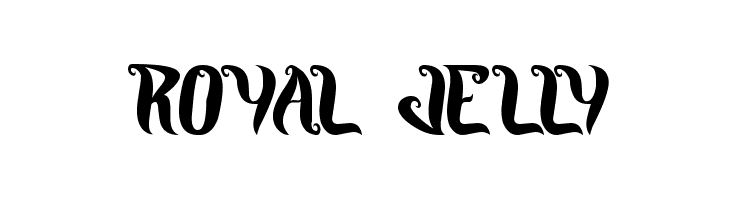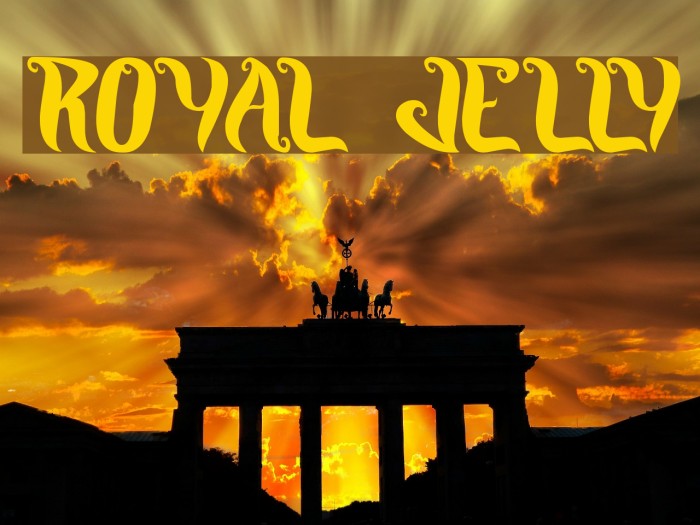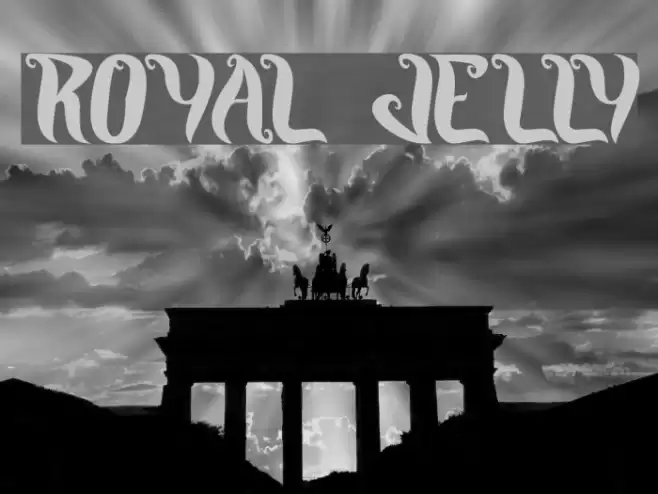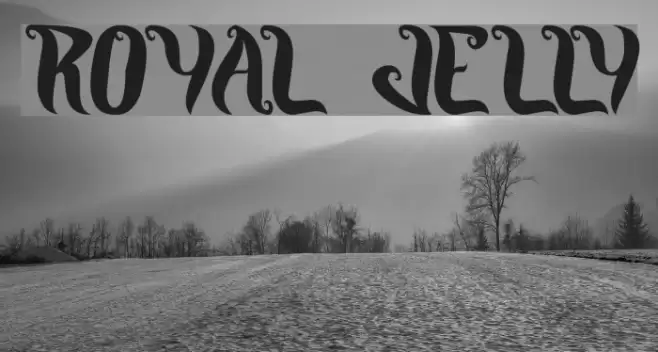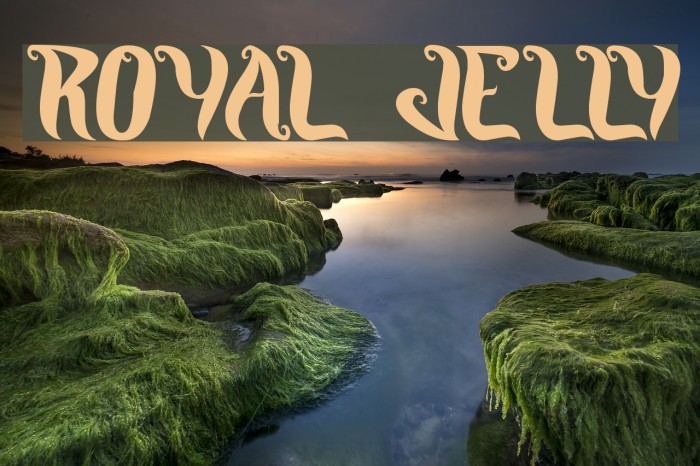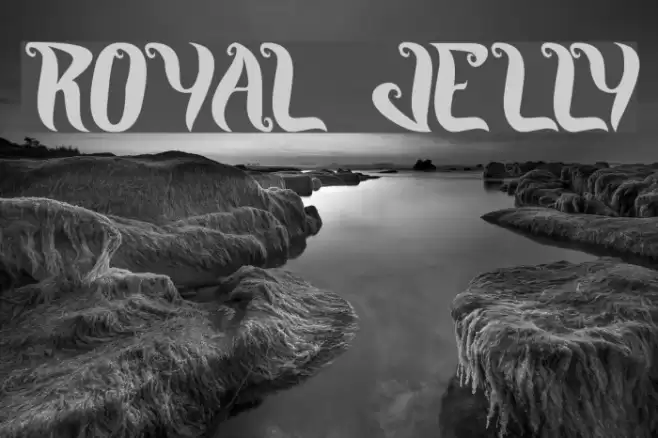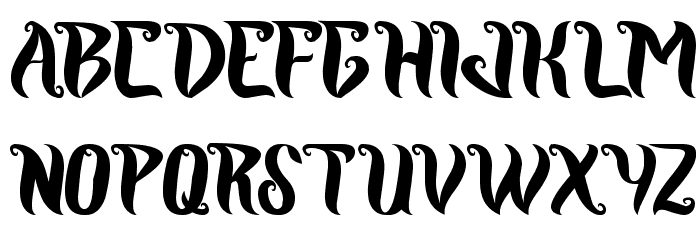
ROYAL JELLY Font
This font features a bold, decorative style with a whimsical flair. Each letter is crafted with unique, swirling elements that add a playful and artistic touch. The strokes are thick and bold, providing a strong visual impact. The characters have a consistent height, but the intricate details make each letter stand out individually. The font's design is reminiscent of vintage or fantasy themes, making it suitable for creative projects that require a touch of elegance and imagination. The overall appearance is both striking and memorable, ideal for capturing attention.
A bold, decorative font with whimsical, swirling elements and a vintage flair.
• Proposed Projects: Ideal for use in fantasy-themed designs, book covers, posters, and branding projects that require a unique and artistic touch.